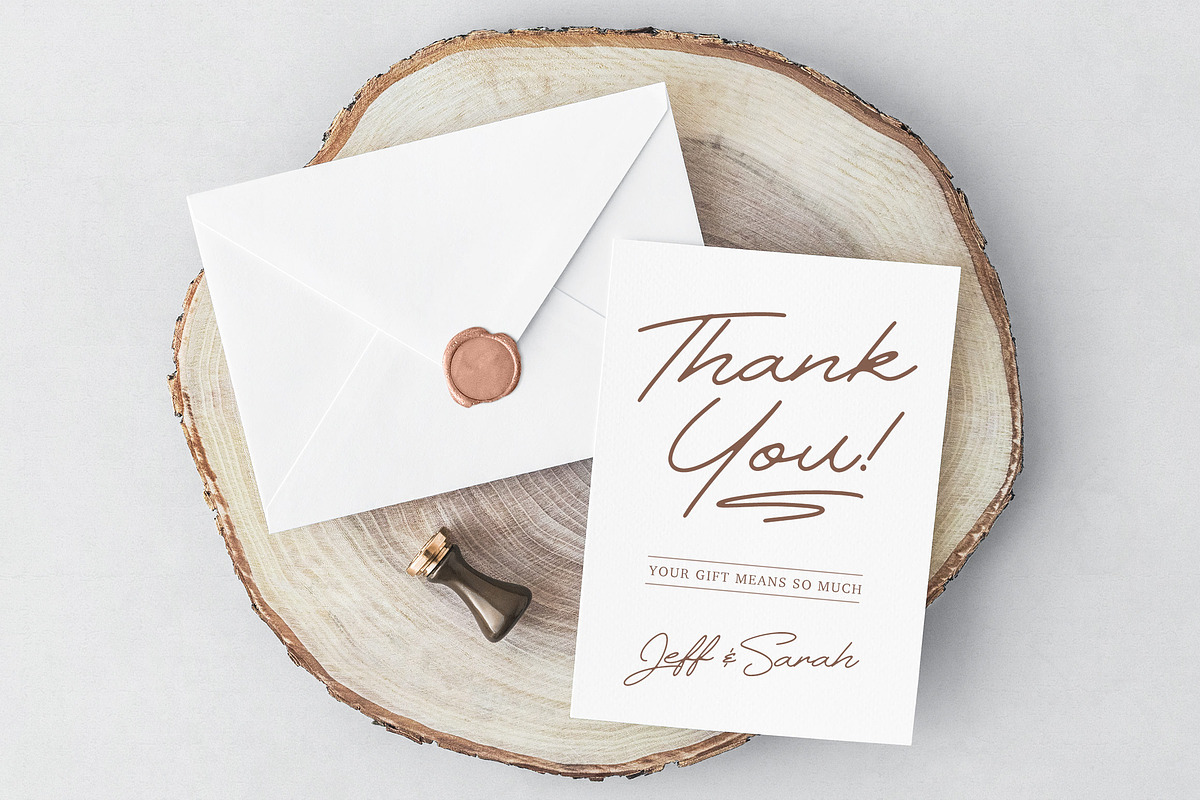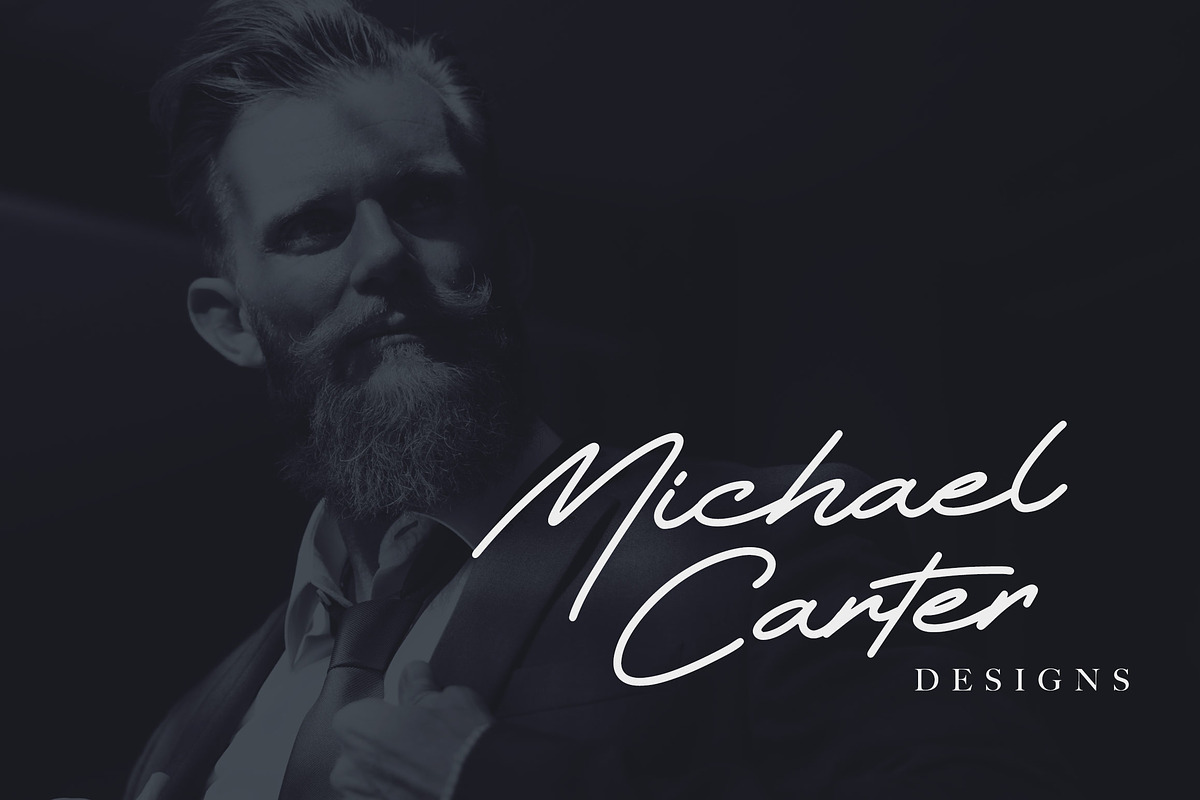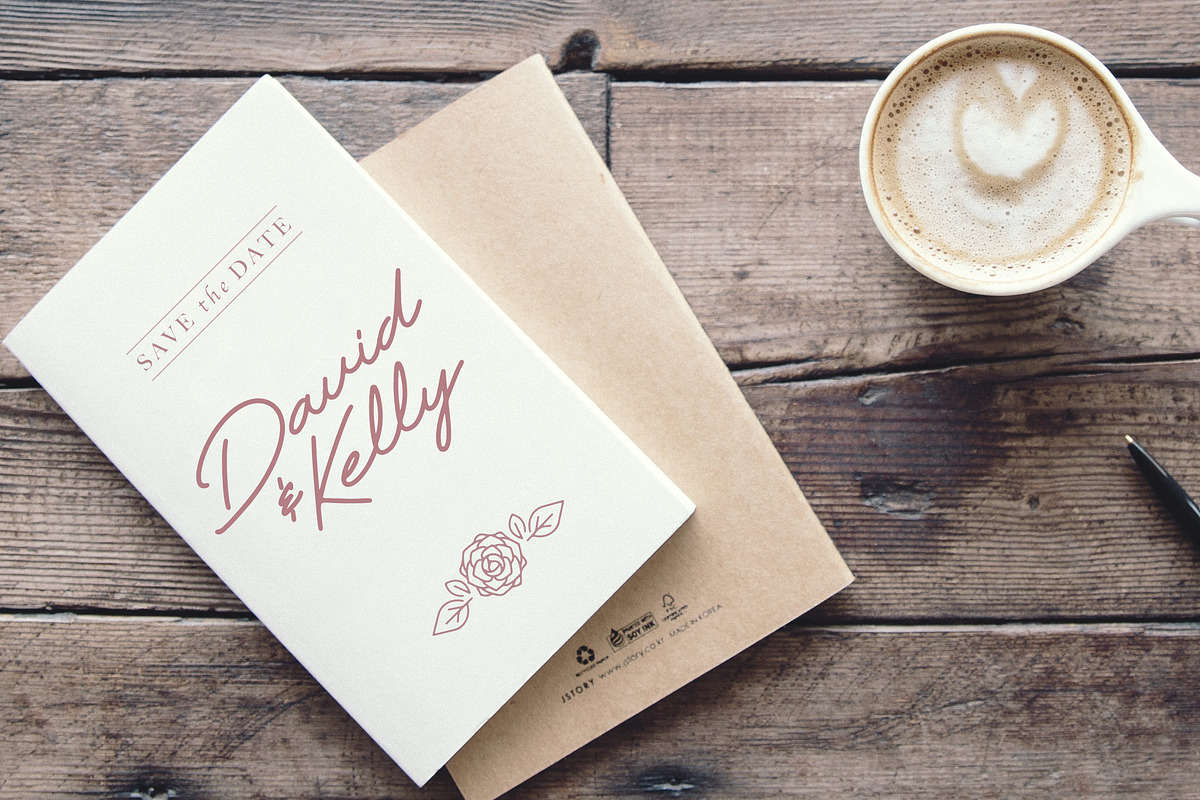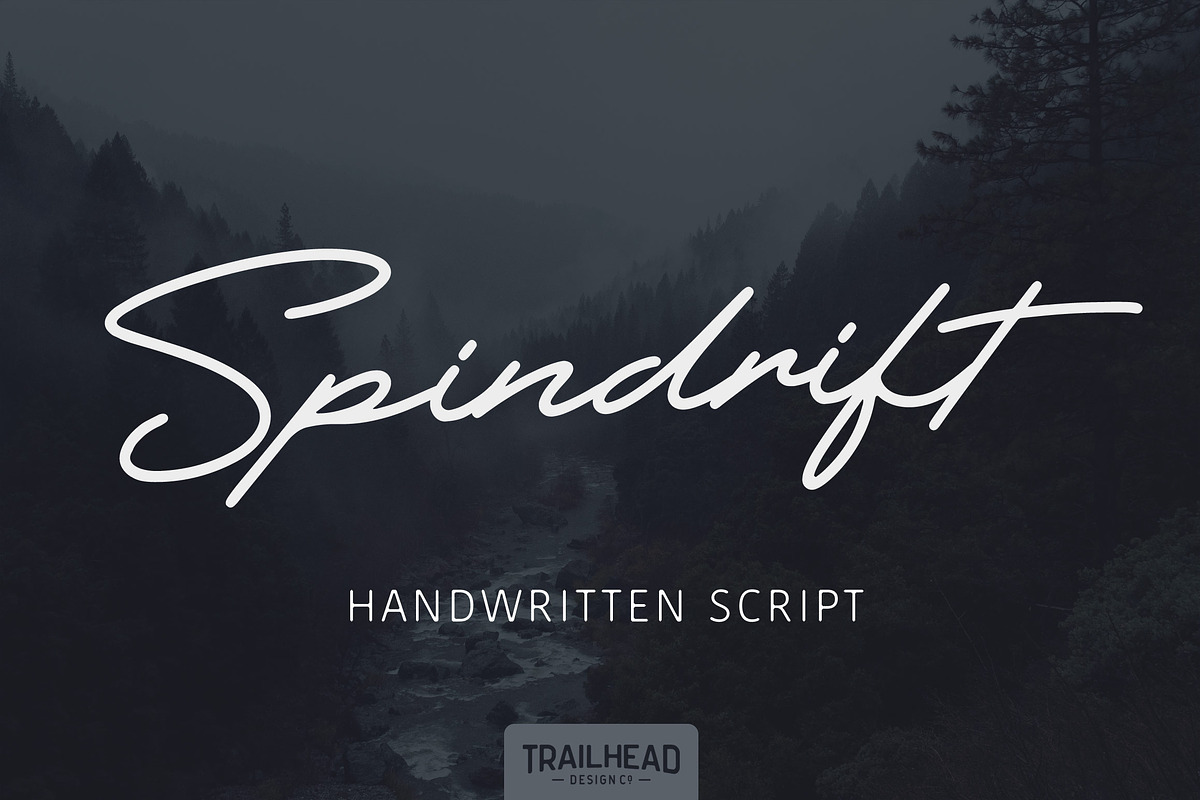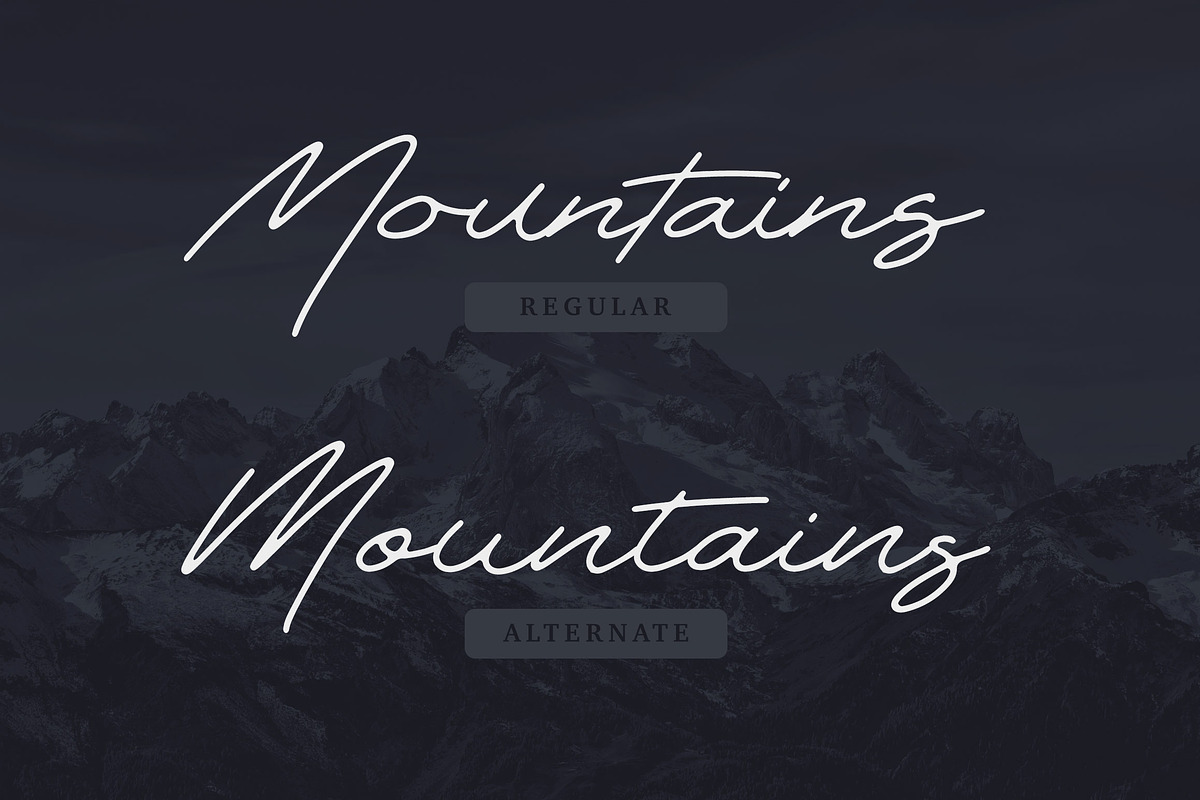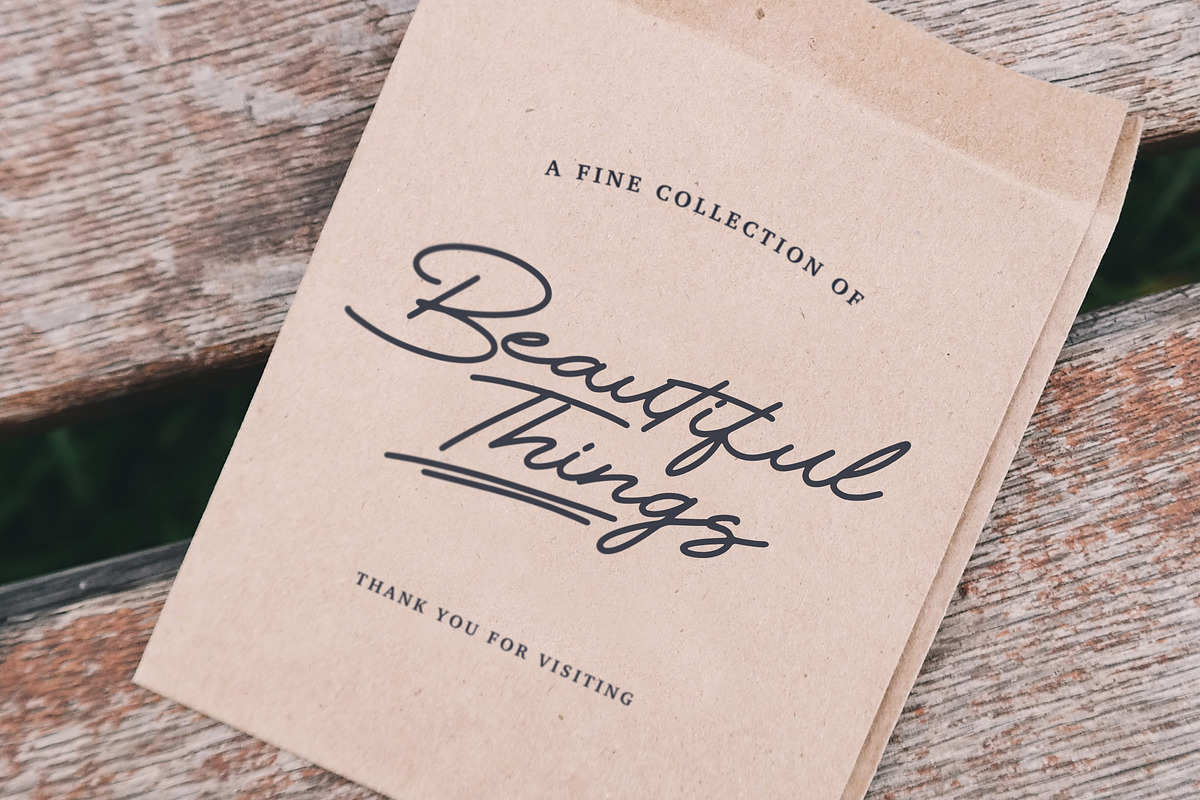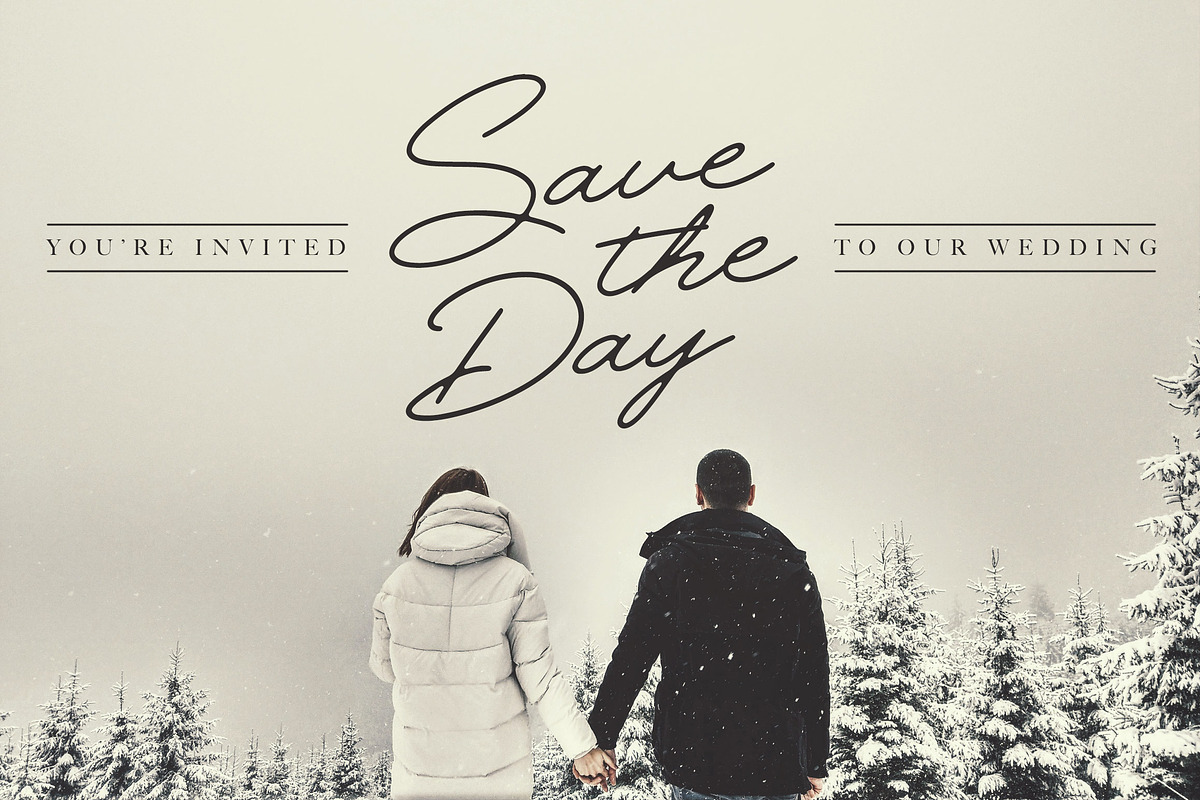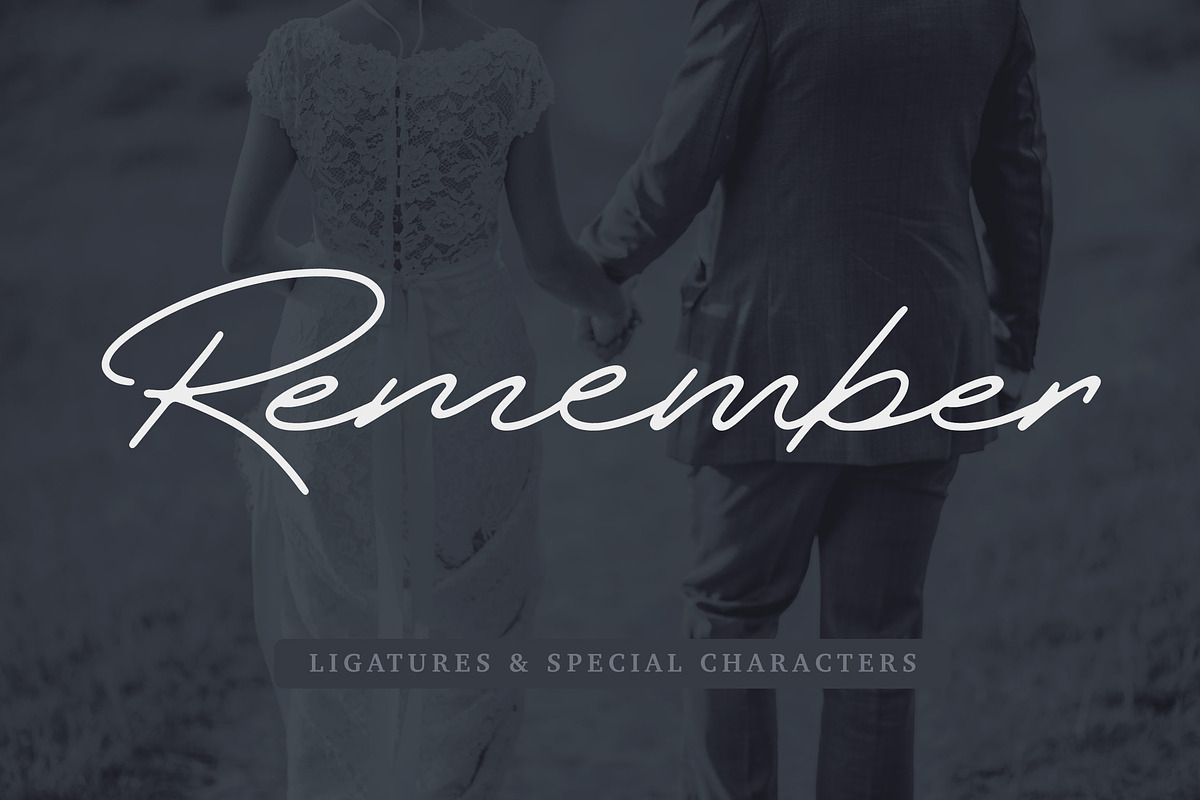
Spindrift Handwriting Script 4 Fonts
Spindrift is a hand written signature style script. It features a slanted lettering style that gives it a quick and speedy pacing. It's a perfect script for a signature based brand, or for adding a personal touch to wedding invitation, thank you's and many other applications.
Spindrift features a full set of alternate characters with the main font, but I've also separated the alternates into a separate font for those who aren't using applications that support all True Type features. The font also includes many ligatures, special characters and a set of underlines.
- Spindrift Regular - with a full set of alternate characters and ligatures
- Spindrift Bold - Bold version with full characters and ligatures
- Spindrift Alternate - The full set of alternates in a separate font
- Spindrift Bold Alternate - Bold version alternates